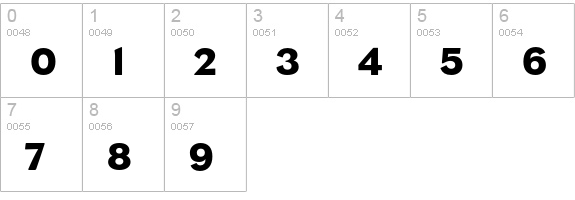
EagleNummerZwei Font Details
EagleNummerZwei is a stunning typeface that exudes elegance and sophistication. With its bold, yet sleek design, this font is perfect for adding a touch of modernity to any project. The powerful and commanding presence of EagleNummerZwei makes it ideal for headlines, logos, and branding materials. Its clean lines and sharp corners give it a professional and polished look, making it a great choice for corporate designs and high-end websites. But what sets EagleNummerZwei apart from other fonts is its versatility. Whether you're looking to create a sleek and minimalistic design or a bold and eye-catching statement, this font has got you covered. And the best part? EagleNummerZwei is available to download for free at FontsMarket.com. So, you can enjoy all the benefits of this amazing font without having to spend a dime. So why wait? Elevate your designs with the power and beauty of EagleNummerZwei today. Download it for free at FontsMarket.com and create stunning visuals that will leave a lasting impression.